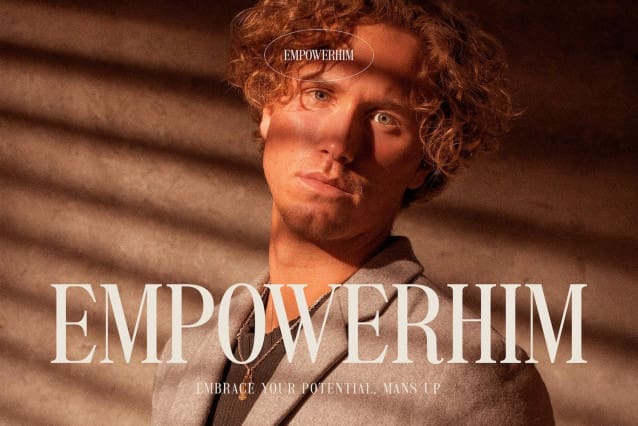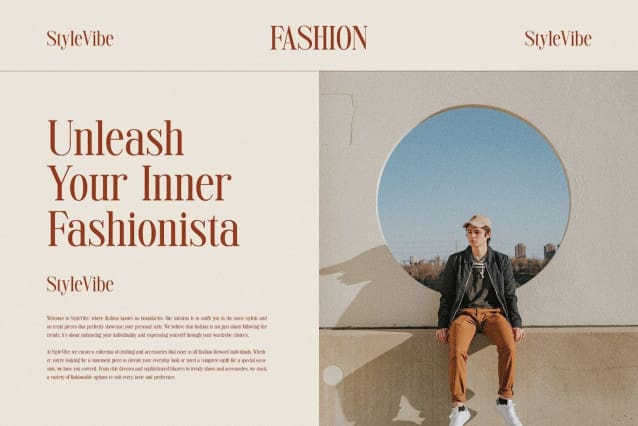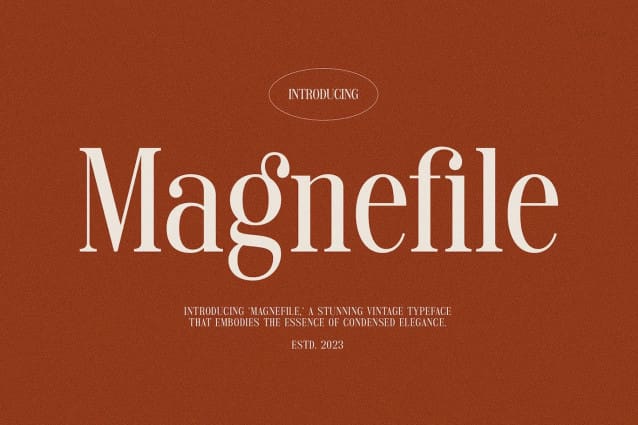
Magnefile Font
Magnefile Font, modern serif font with elegant style this is perfect for branding, logos, invitation, magazines, product packaging and more.